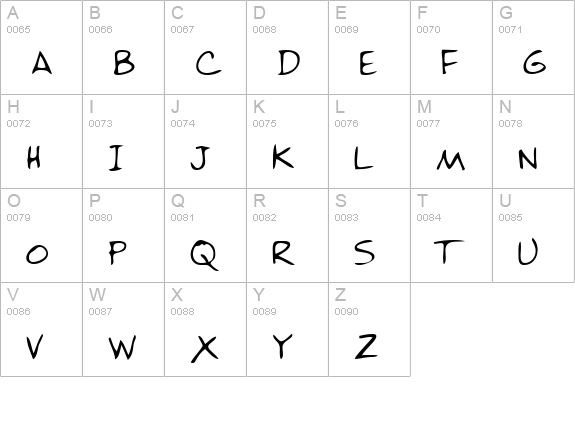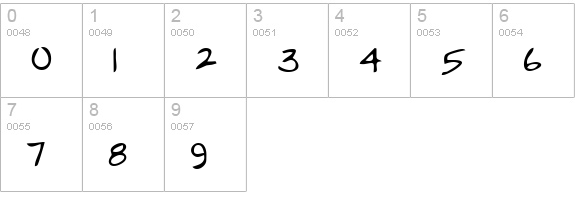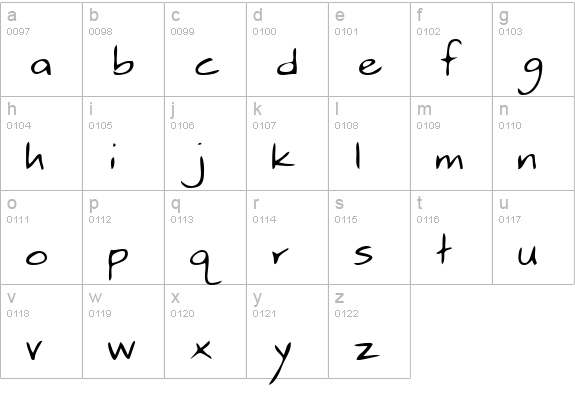
NickysHand Regular Font Details
NickysHand Regular is the standard, neutral variant in the NickysHand typeface family \xE2\x80\x94 well suited to general body text, paragraphs, and standard typographic work.
NickysHand Regular is a charming and playful handwritten font that exudes a sense of warmth and friendliness. The natural flow of its strokes gives a personal touch to any design project, making it perfect for greeting cards, invitations, logos, and more. This delightful font is available for free download at FontsMarket.com, allowing you to add a touch of uniqueness to your creations without any cost. With its legible yet whimsical style, NickysHand Regular is sure to bring a touch of creativity to your designs. Don't miss out on this free font and start incorporating it into your projects today!